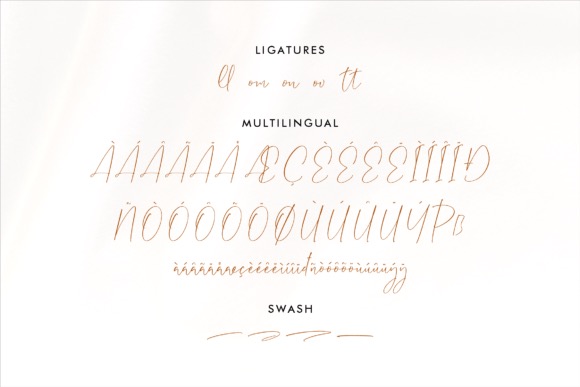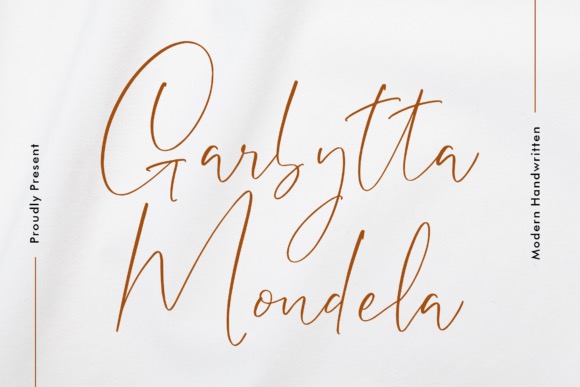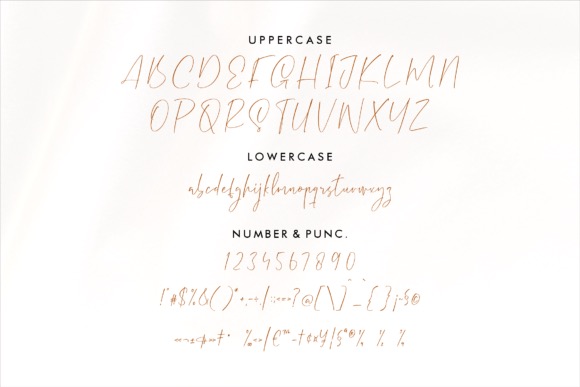
Garbytta Mondela is a cool and friendly Modern Handwritten script font that was created and released by Letterfabric Studio, suitable for any projects such as: logos, branding projects, homeware designs, product packaging, mugs, quotes, posters, shopping bags, t-shirts, book covers, name card, invitation cards, greeting cards, label, photography, watermark, special events, and all your other lovely projects that need a beautiful script taste.
Garbytta Mondela Handwritten Font